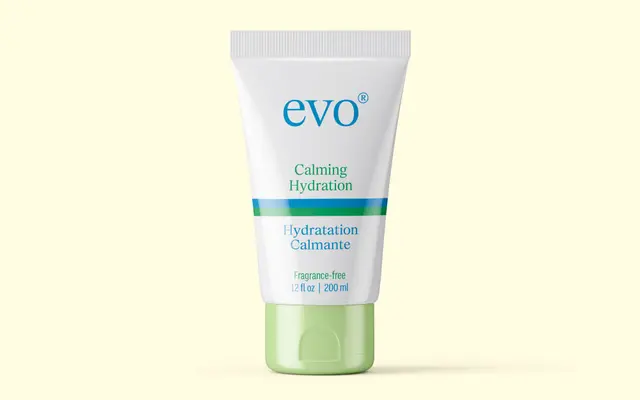
Exact specimen from Signal
A ground-up redrawing of Times New Roman by Signal, correcting its structural inconsistencies and extending it into a coherent six-weight family with italic.
Signal rebuilt Times New Roman from scratch as a natively digital typeface, smoothing out what they describe as 'unlumpy curves' and imposing the organic unity the original Drawing Office process never achieved. The italic sheds its corporate stiffness, the bold weights acquire a hint of 1970s ITC funk, and the X-Light carries a slight Olive Oyl elongation that was left deliberately intact. Seven styles across six weights make it a considered text family for editorial work that wants TNR's cool neutrality without its accumulated baggage.
A from-scratch reworking of Times New Roman, itself a transitional serif of the Morison/Monotype school. Signal's redraw retains the reticent, upright character of TNR while correcting its structural inconsistencies and adding a full weight range.